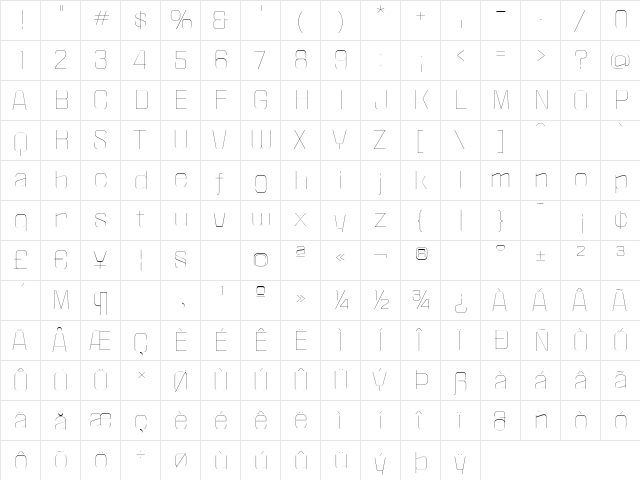
Politica XT Thin
Thin · Alejandro Paul Alejandro Paul & Alfredo Graziani ·
Year 2004
Foundry Alejandro Paul
StyleThin
FoundryAlejandro Paul
DesignerAlejandro Paul & Alfredo Graziani
Year2004
Design Context for Politica XT Typeface
Politica XT takes a measured approach to typography — its balanced proportions and neutral character make it a reliable workhorse for both digital and print work. The delicate stroke weight brings airiness and refinement to layouts.